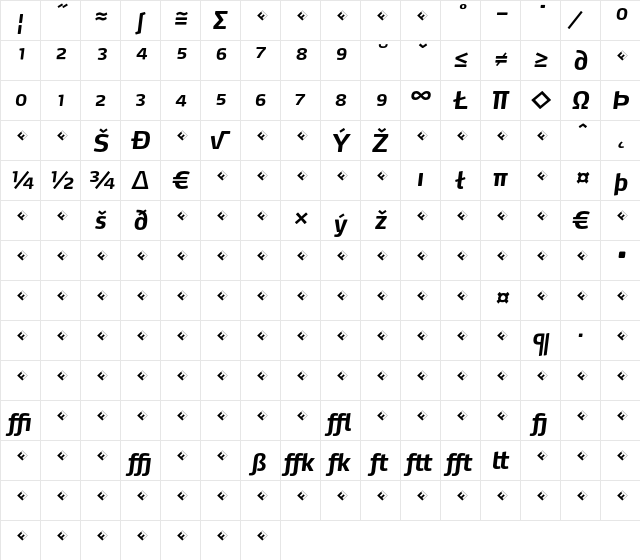
Max-BoldItalicExpert Regular Font Preview
Design Context for Max-BoldItalicExpert Typeface
Max-BoldItalicExpert takes a measured approach to typography — its balanced proportions and neutral character make it a reliable workhorse for both digital and print work. The dynamic lean of this cut emphasises speed and emphasis in any layout. The heavy weight commands attention and anchors typographic hierarchies.
Pro Tip: Use Max-BoldItalicExpert for emphasis, pull quotes, and subheadings where its slanted energy can add rhythm to the layout.